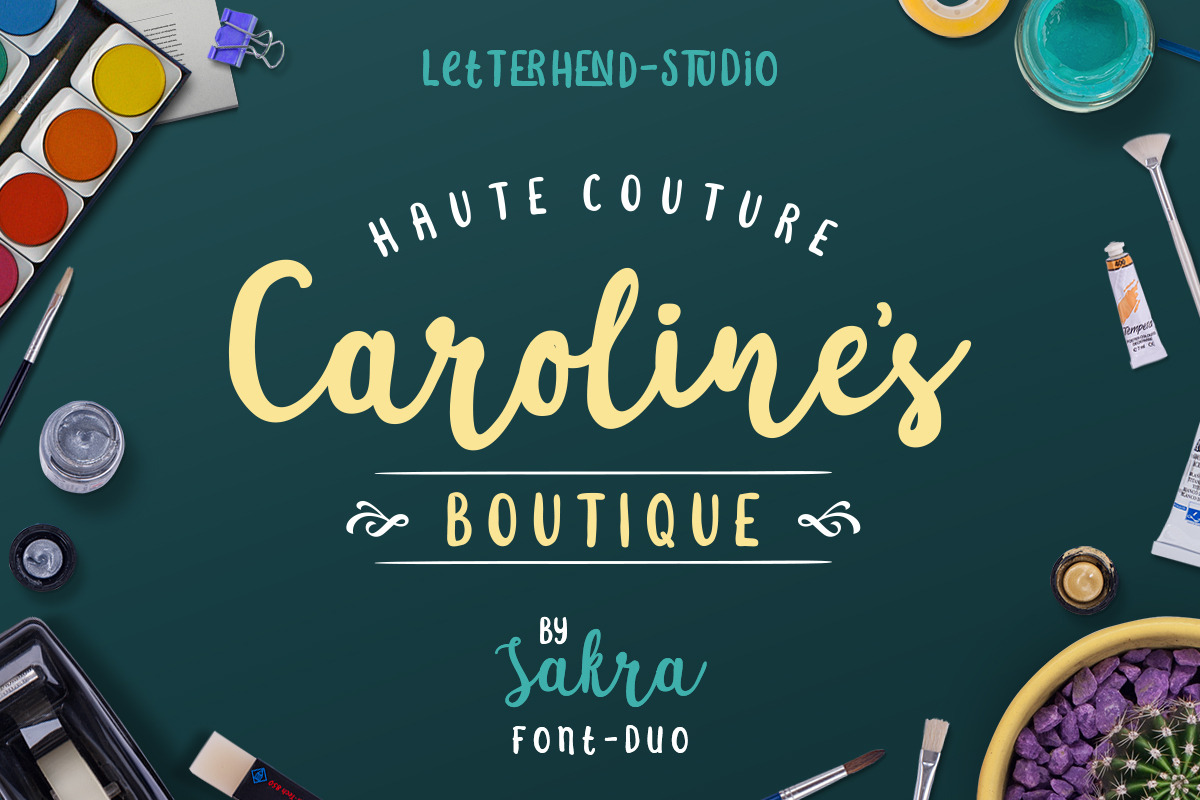
Introducing, Sakra! font duo, a fun font duo with regular and script which is perfectly used for your fun & casual project! Sakra! font duo includes upper & lowercase characters, punctuation, numerals, and multilingual support. It also has many open type alternates and ligatures.